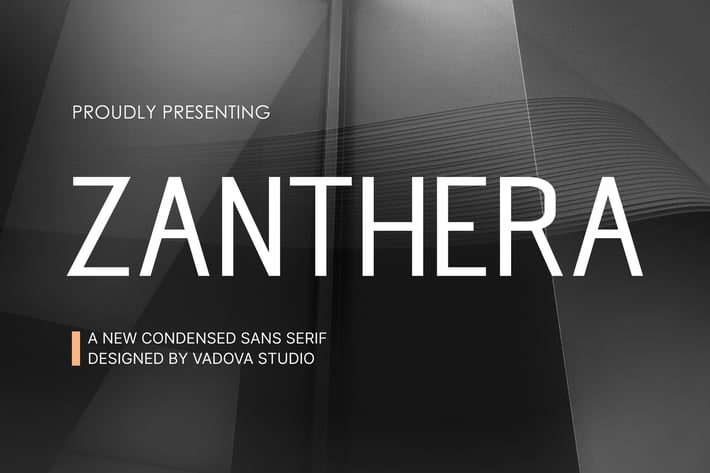
Zanthera Condensed Sans Font
Zanthera Condensed Sans Font is a sleek and modern condensed sans-serif font that embodies contemporary elegance and efficiency. Its clean lines and compact form give it a sophisticated yet approachable energy, making it ideal for designs that require clarity, space-saving, and a distinctly minimalist aesthetic. This font, designed in 2025, is perfectly suited for modern applications demanding high readability and a professional touch.
Zanthera Condensed Sans Font Suitable for is incredibly versatile, ideal for creating sleek branding and modern logos, especially for tech, corporate, and lifestyle businesses. It excels in headlines, making them impactful yet efficient in space, perfect for digital and print media. This font also shines in body text, ensuring high readability for editorial content, e-books, and web articles. Furthermore, it's suitable for UI design, app interfaces, product packaging, and informational graphics, providing a clean, professional, and contemporary visual presence across all platforms.